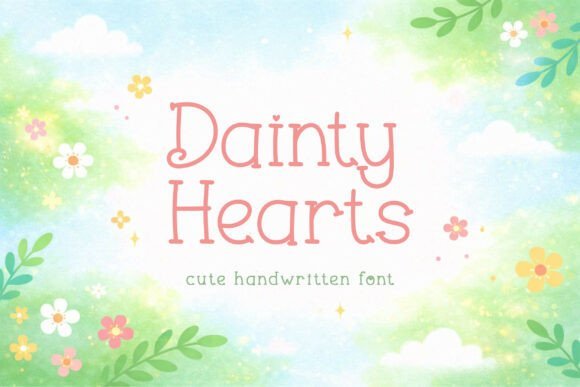
Introduction to Dainty Hearts Font
Dainty Hearts is a cute handwritten font with a light, playful personality and charming heart details.
Its thin strokes and gentle curves create a soft and friendly appearance, perfect for designs that need a cute and approachable touch This font works beautifully for greeting cards, kids projects, planners, stickers, notebooks, classroom materials, branding, social media posts, and various crafting designs.
Key Features of Dainty Hearts Font
Why Choose Dainty Hearts Font?